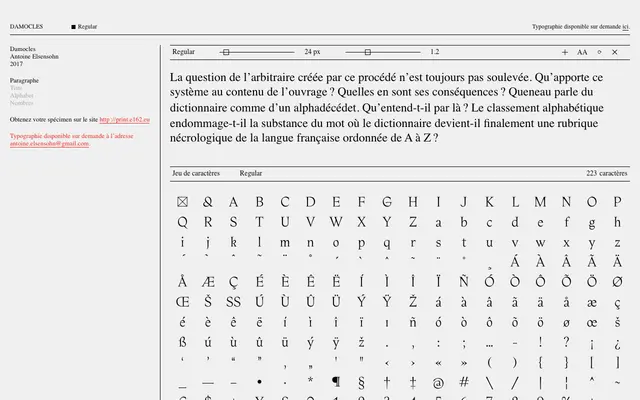
Damocles
A single-weight text serif by Antoine Elsensohn, released in 2017 and available on request from E162.
Designed by Antoine Elsensohn and published through the French foundry E162, Damocles is a text serif issued in a single Regular weight covering 223 characters. The specimen, available in print form via E162's print portal, is presented with body copy exploring ideas around alphabetical ordering and language. It is distributed on request rather than through a standard retail channel.
The specimen imagery and the single-weight, text-focused design suggest a classical serif with transitional characteristics, suitable for book and editorial settings.